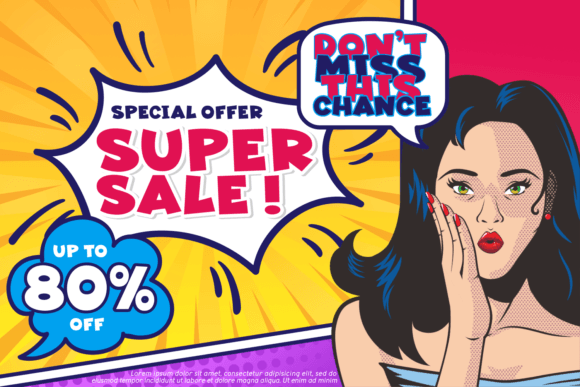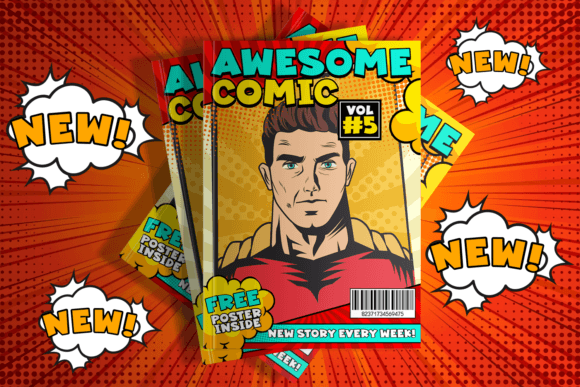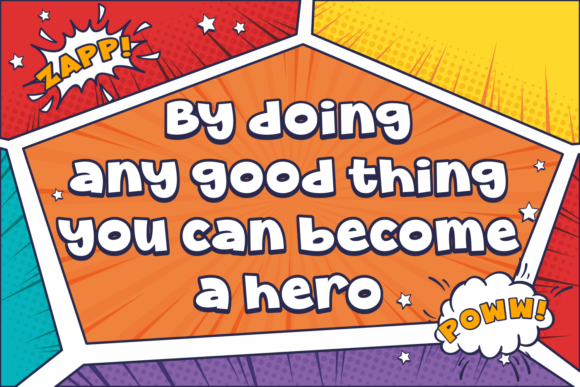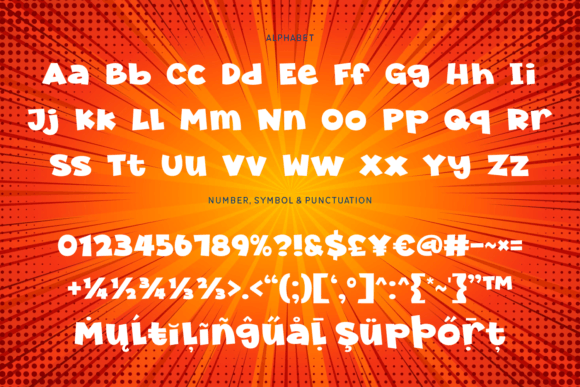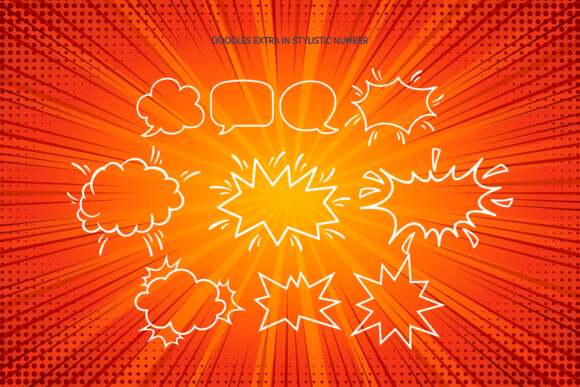
Introducing Boldy Wise Font: The Ultimate Display Font for Comic Book Enthusiasts and Designers
Are you tired of using the same old fonts for your comic book, cartoon, or design project? Look no further than Boldy Wise Font, a bold and comic display font that’s perfect for adding a touch of humor and fun to your work. With its thick and chunky shapes, quirky design, and PUA encoding, this font is a game-changer for designers and crafters alike.
The Perfect Blend of Strength and Humor
Boldy Wise Font strikes the perfect balance between strength and humor, making it ideal for projects that require a bold and playful touch. Its thick and chunky shapes create a sense of power and confidence, while its quirky and playful design adds an element of creativity and humor. Whether you’re working on a comic book, cartoon, or any other project that requires a font that’s both bold and comic, Boldy Wise Font is the perfect choice.
Key Features of Boldy Wise Font
- Bold and Comic Design: Boldy Wise Font features a bold and comic design that’s perfect for adding a touch of humor and fun to your project.
- Thick and Chunky Shapes: The font’s thick and chunky shapes create a sense of strength and power, making it ideal for projects that require a bold and confident look.
- PUA Encoding: Boldy Wise Font is PUA encoded, meaning that you can access all delightful glyphs and swashes effortlessly.
- Quirky and Playful Design: The font’s quirky and playful design adds an element of creativity and humor to your project.
Ideal for Comic Books, Cartoons, and More
Boldy Wise Font is perfect for a variety of projects, including:
- Comic books and graphic novels
- Cartoons and animations
- Design projects that require a bold and playful touch
- Any project that requires a font that’s both bold and comic
Why Choose Boldy Wise Font?
There are many reasons why Boldy Wise Font stands out from the crowd. Here are just a few:
- Unique Design: Boldy Wise Font features a unique and quirky design that’s sure to grab attention.
- Ease of Use: The font is easy to use and PUA encoded, making it simple to access all glyphs and swashes.
- Versatility: Boldy Wise Font can be used for a variety of projects, from comic books to design projects.
- High-Quality: The font is high-quality and perfect for professional projects.